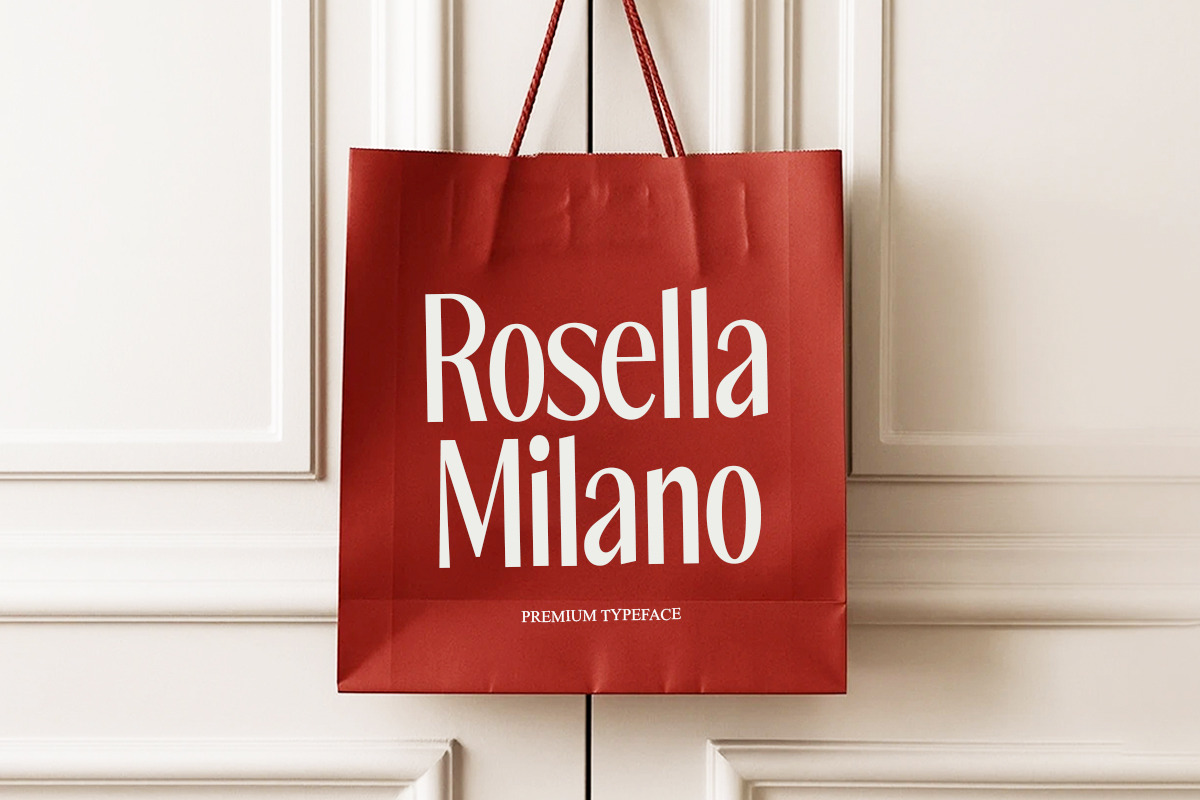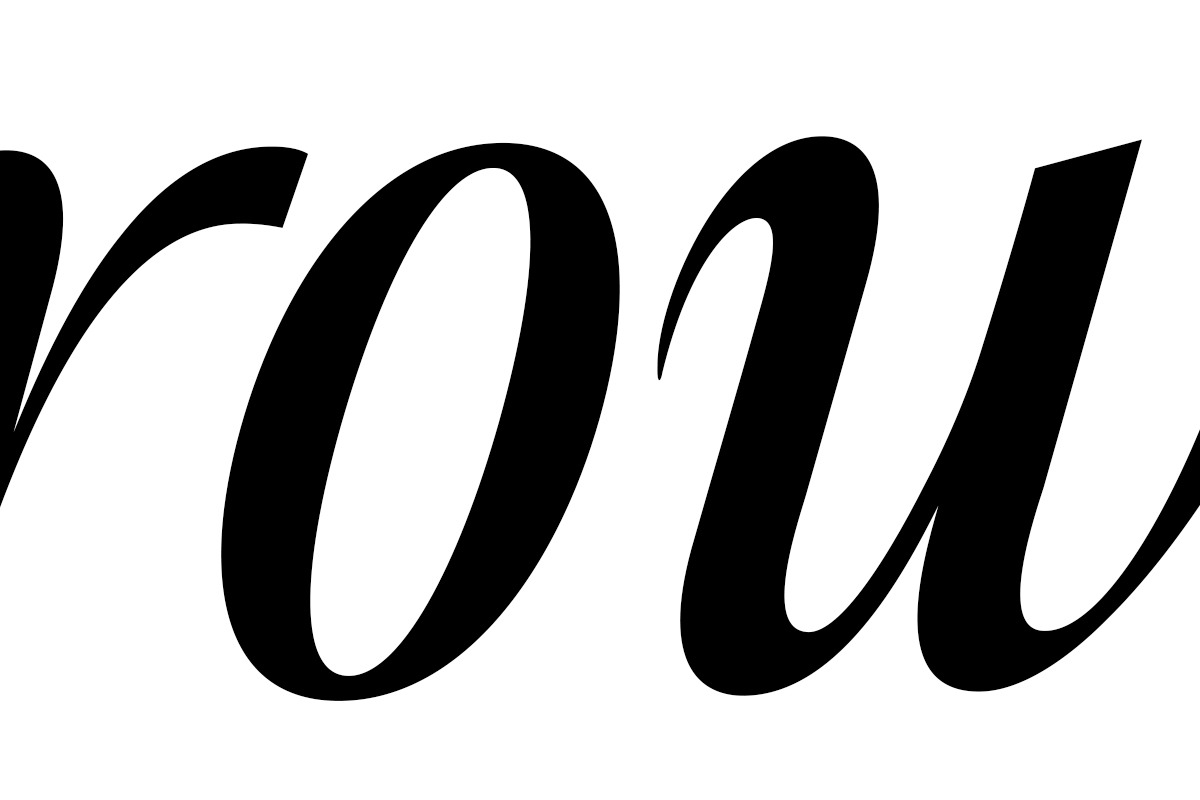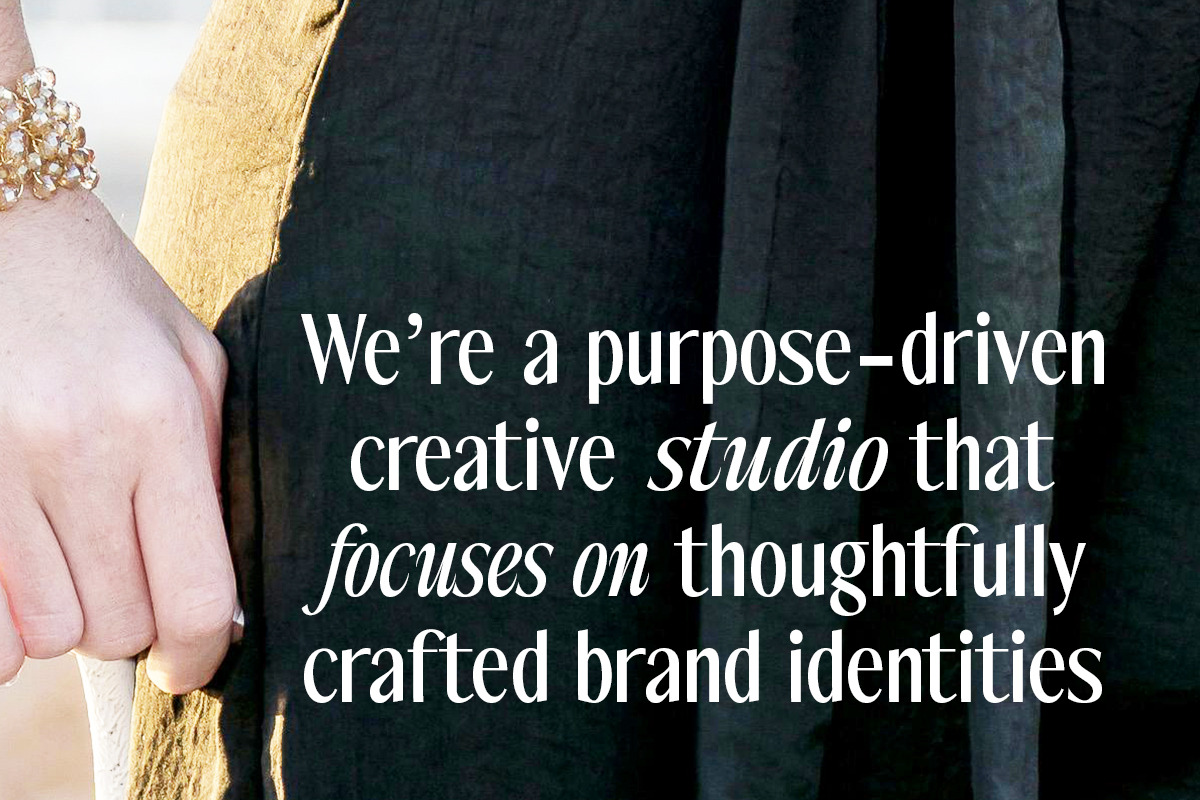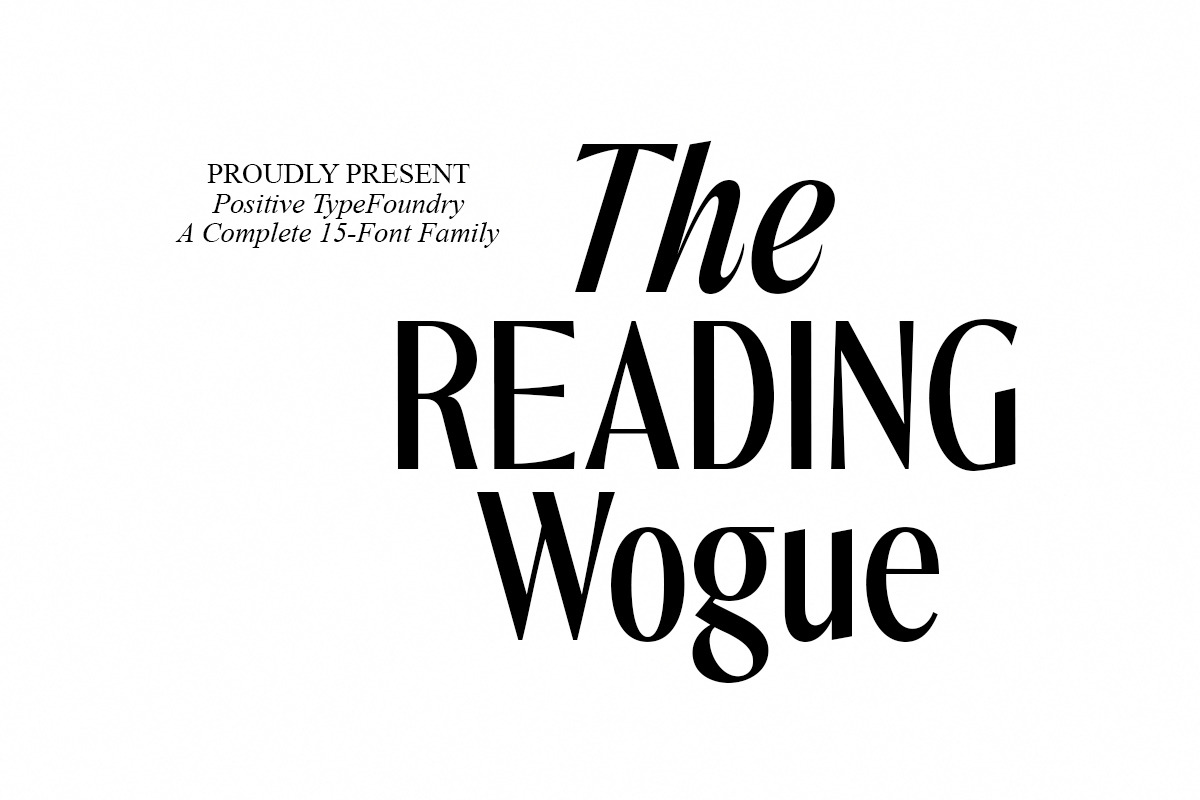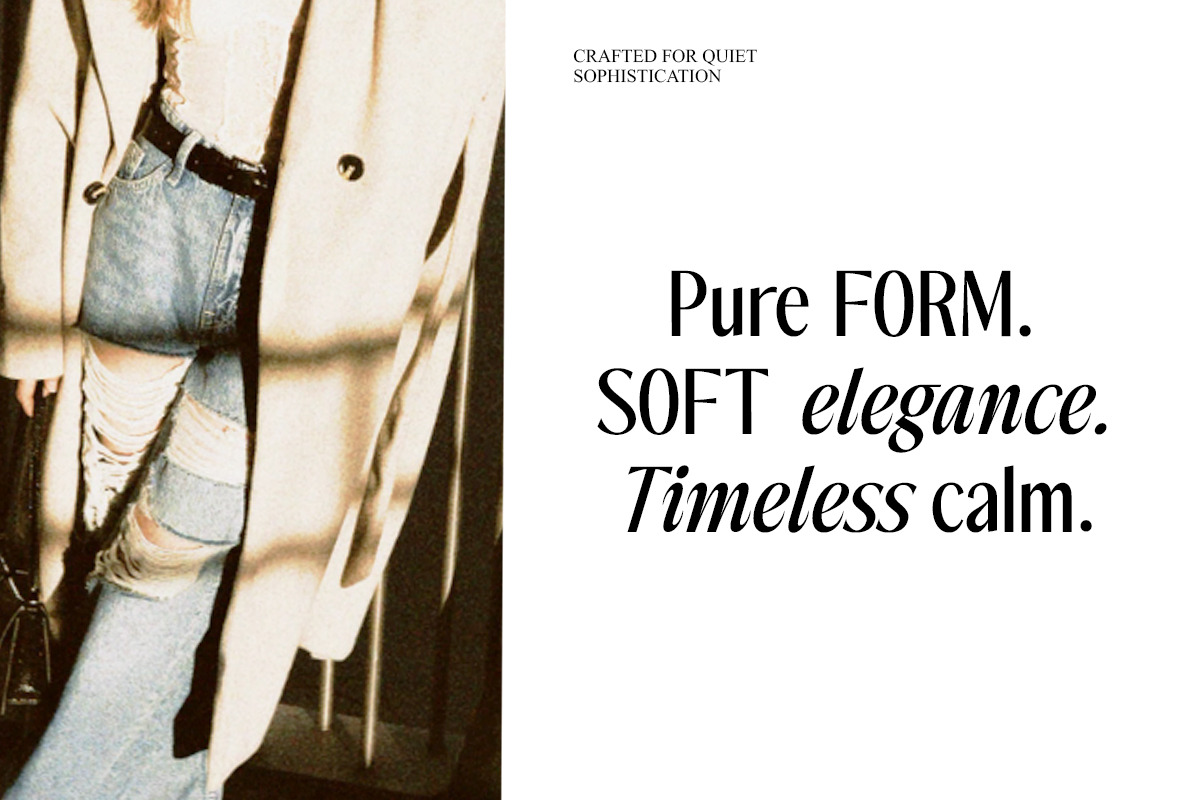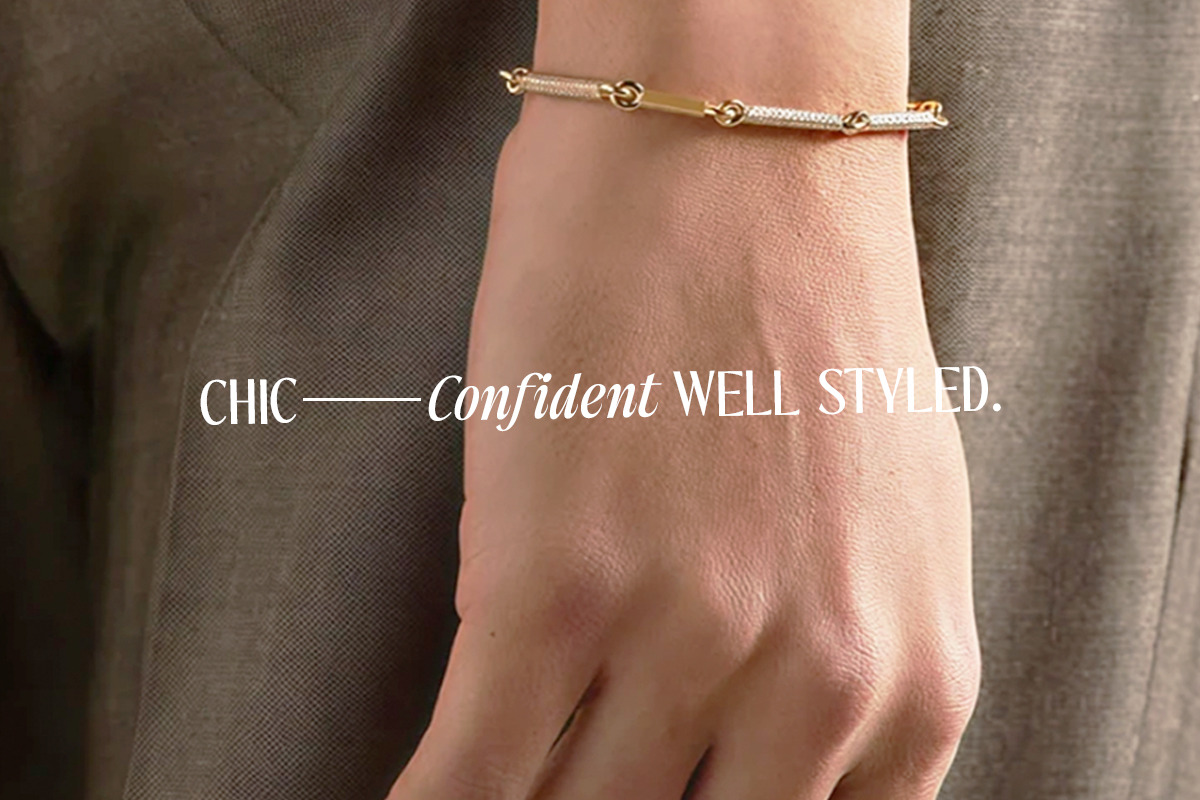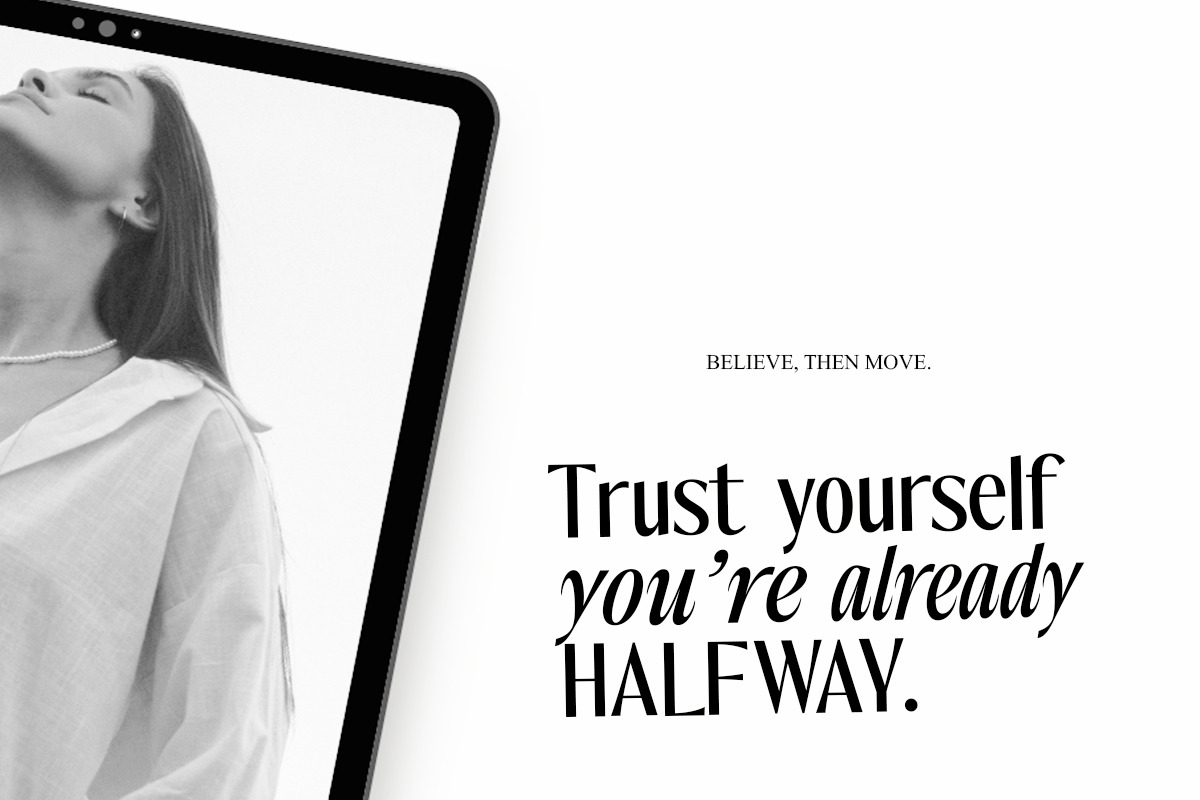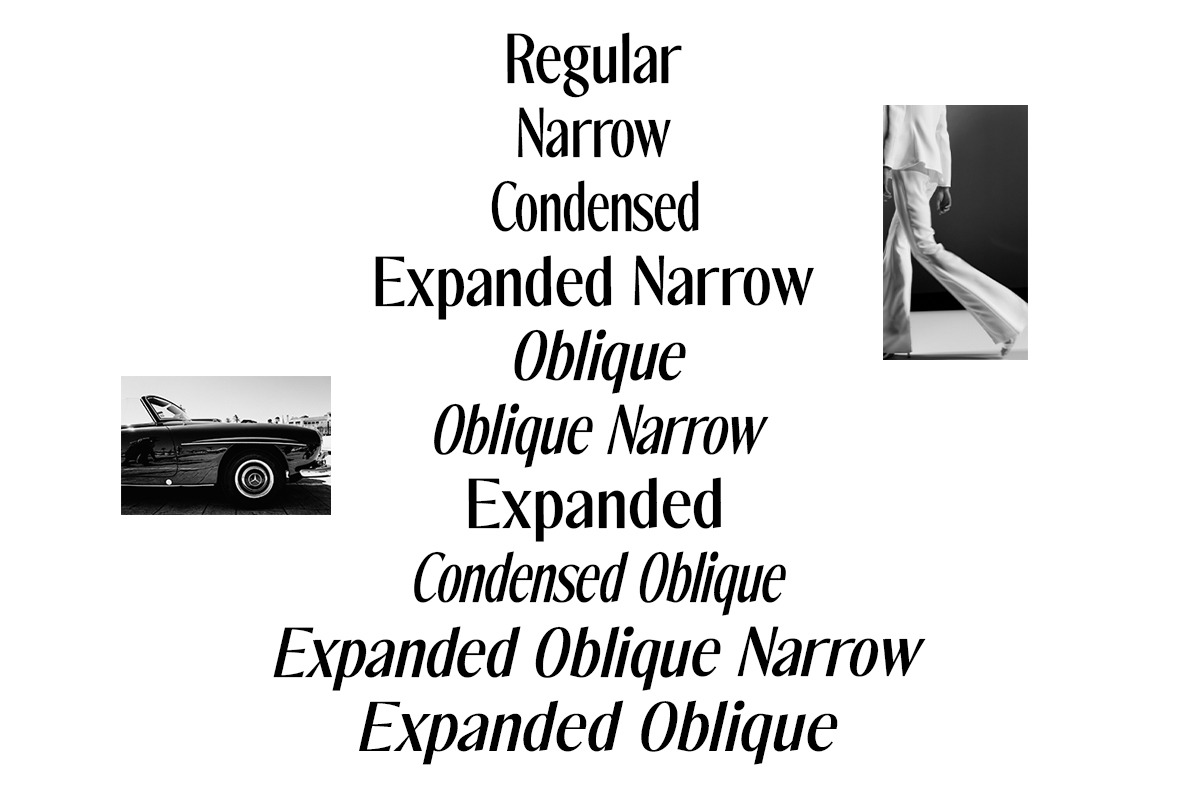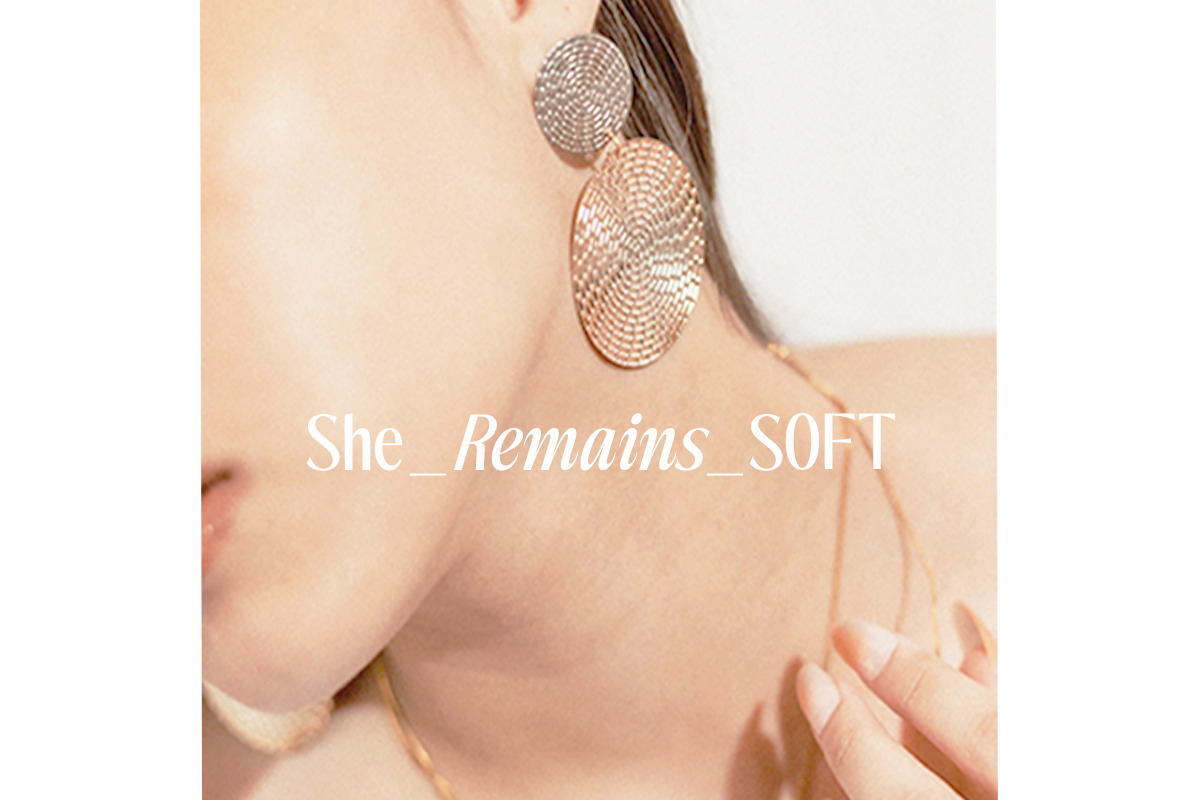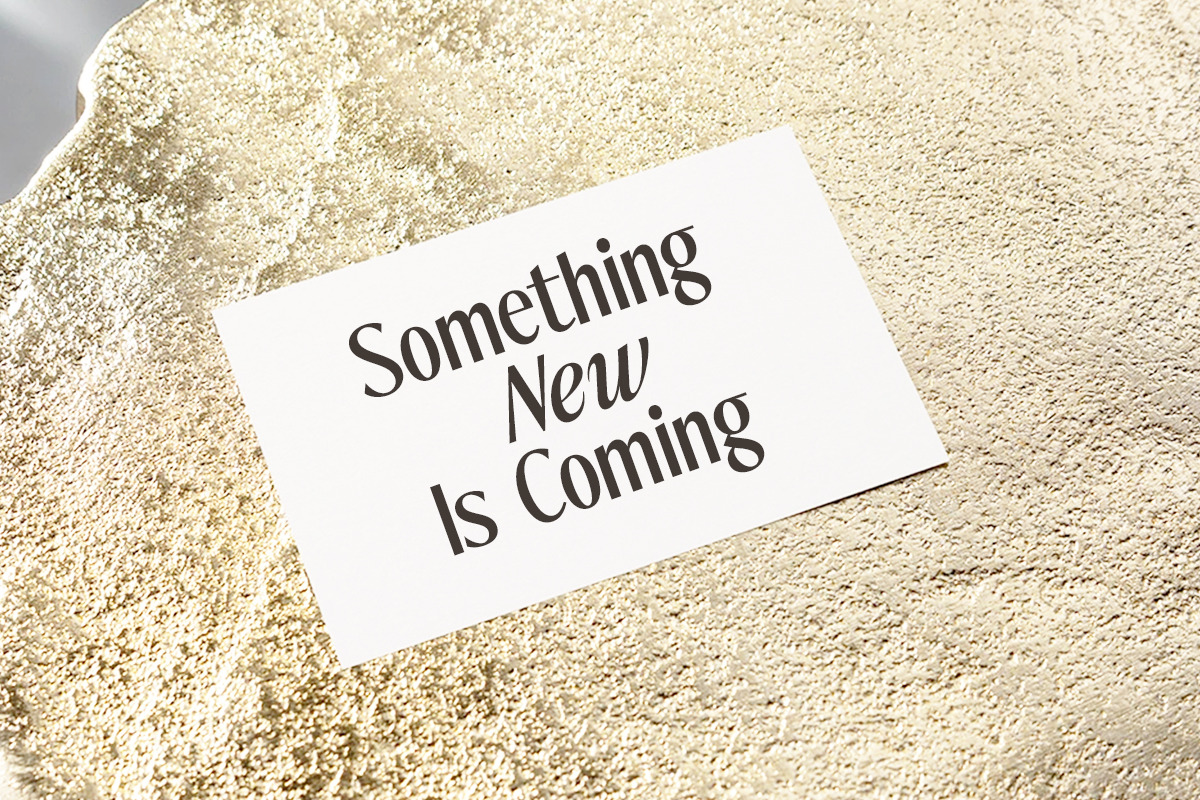
The Reading Wogue | 15 Font Files
Reading Wogue is a refined modern serif typeface designed for high-end editorial aesthetics. Inspired by classic fashion magazines and contemporary typography, this font balances elegance, clarity, and versatility in one complete family.
With its sharp contrasts, graceful curves, and confident proportions, Reading Wogue is perfect for luxury branding, magazine layouts, headlines, book covers, posters, and sophisticated visual identities. The design shines especially in editorial and fashion contexts, where style and readability must work in harmony.
This font family includes 15 carefully crafted styles, offering a wide range of widths and oblique options. From condensed to expanded, regular to oblique, Reading Wogue gives designers full typographic flexibility for both bold statements and refined compositions.
Whether you are designing for print or digital media, Reading Wogue delivers a timeless yet modern character that elevates any project.
- Elegant modern serif design
- Strong editorial and fashion appeal
- Clean readability with expressive character
- Perfect for headlines, magazines, branding, and luxury projects
- Professional kerning and spacing
- Works beautifully in both large and medium sizes
Font Family Includes (15 Fonts)
- Narrow
- Condensed
- Expanded
- Expanded Narrow
- Oblique
- Oblique Narrow
- Condensed Oblique
- Expanded Oblique
- Expanded Oblique Narrow
- Italic
- Italic Narrow
- Condensed Italic
- Expanded Italic
- Expanded Italic Narrow
Ideal For
Editorial design, fashion magazines, branding, logos, luxury packaging, posters, book covers, advertising, and high-end visual projects.